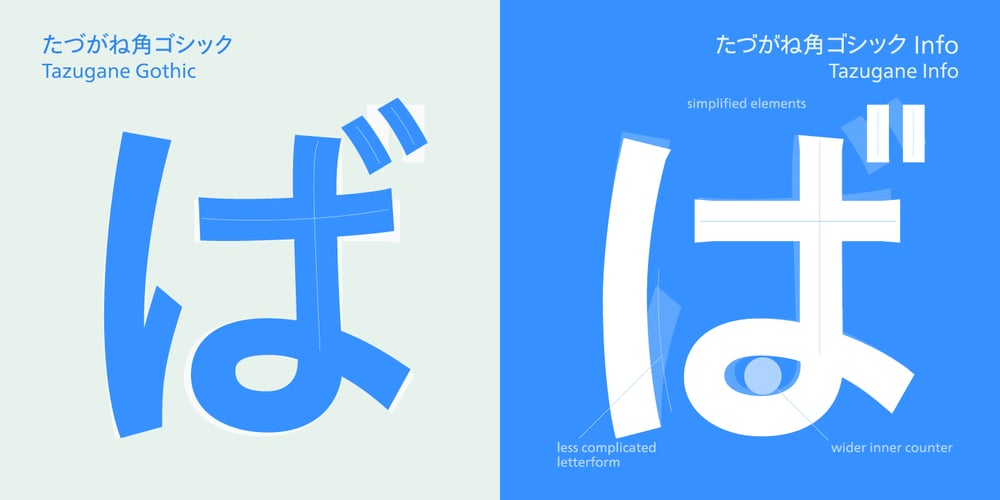
Tazugane Info
Tazugane Info font
Tazugane Info Font Family was designed by Akira Kobayashi, Monotype Design Studio, Monotype Design Studio Japan, Kazuhiro Yamada, Ryota Doi and published by Monotype. Tazugane Info contains 10 styles and family package options. Tazugane Info is a screen-ready Japanese font family, that follows on the debut of Monotype’s first original Japanese typeface – Tazugane Gothic. It offers a more restrained personality, with calligraphic design details pared back to create a geometric letterform – a good alternative for designers looking for a matter-of-fact alternative to the warmer Tazugane Gothic tone of voice. Tazugane Info was updated to support the “Reiwa” new era symbol. Reiwa can be written as two kanji: 令和. This update to Tazugane Info includes Reiwa designed as a single ligature and is encoded as U+32FF. “While Tazugane Gothic fits perfectly when your job requires an organic and friendly tone of voice, Tazugane Info provides a more solid look,” says Kobayashi. “I hope that having two options will make it easier to choose an appropriate tone of voice to convey information or brand messaging.” Its strokes create a smooth uninterrupted flow that’s designed for use on-screen. Although books, newspapers and magazines are traditionally set vertically in Japan, smartphones, information panels and car navigation systems are all set horizontally – and Tazugane Info has been tailored to this environment, featuring a new set of kana phonetic symbols. Tazugane Info is available in 10 weights, and includes the complete set of kanji and latin found in Tazugane Gothic.